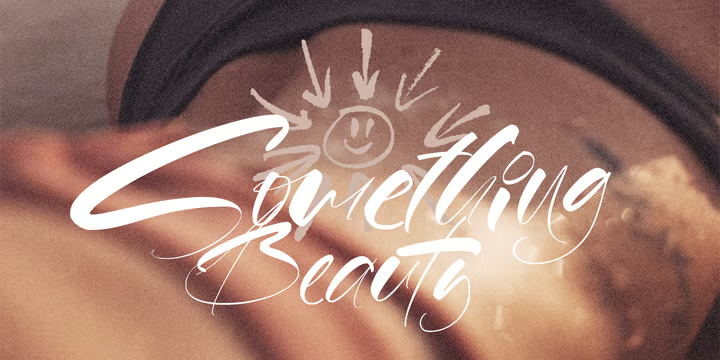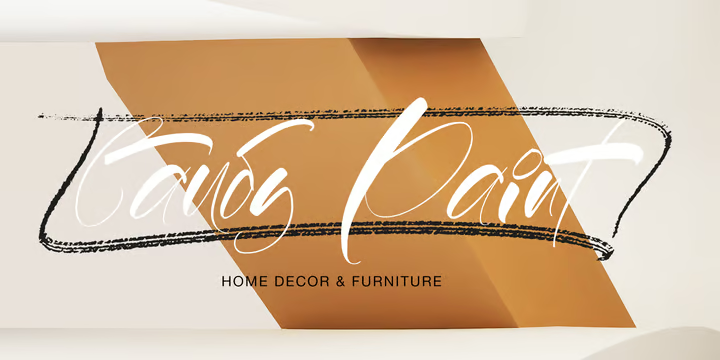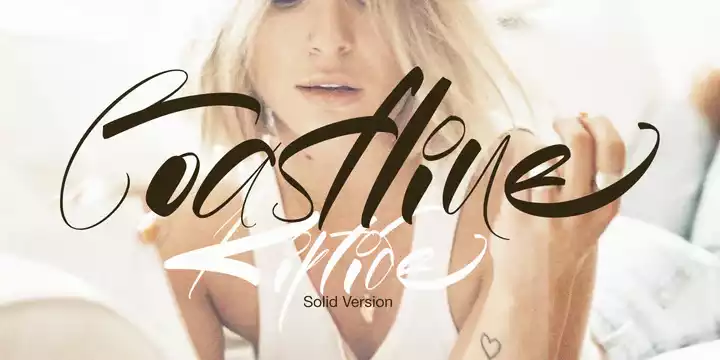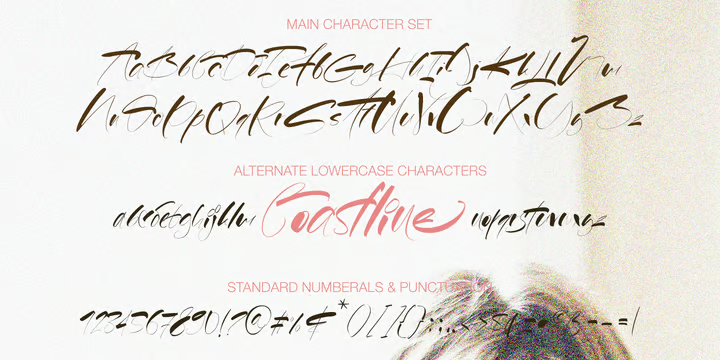
Coastline Font
Coastline is a solid version of kiptide. Coastline comes with a set of upper and lowercase letters, numbers, alternative styles for some lowercase characters are also available, which makes your text and designs more attractive.
Coastline Font is a Decorative Fonts font that brings a professional and versatile look to your projects. Coastline is a solid version of kiptide.